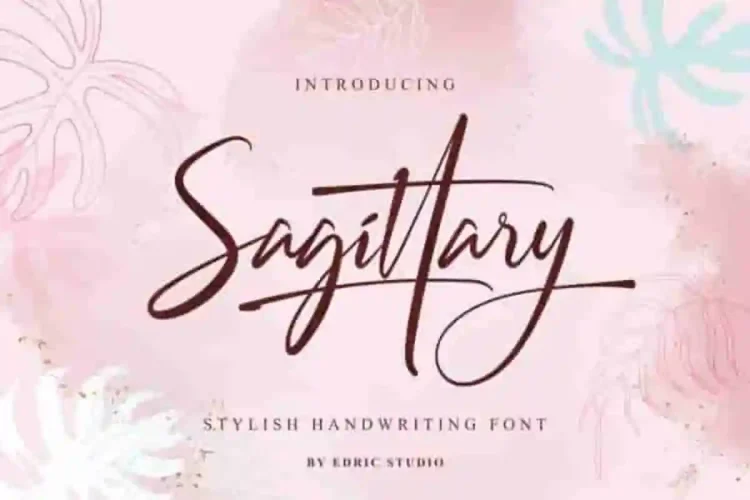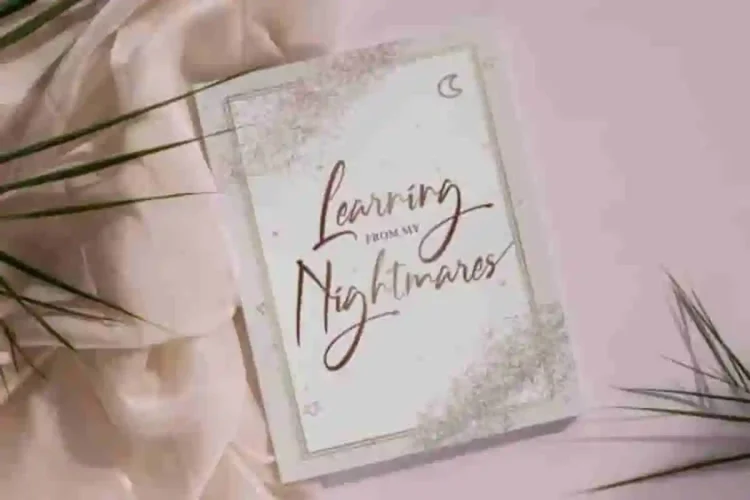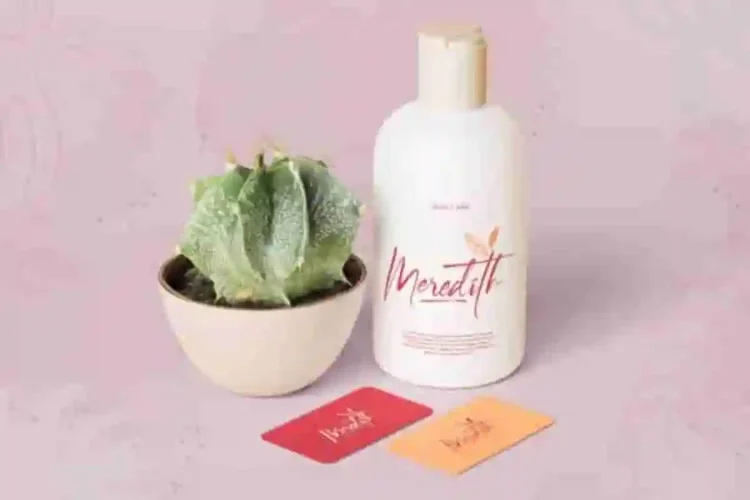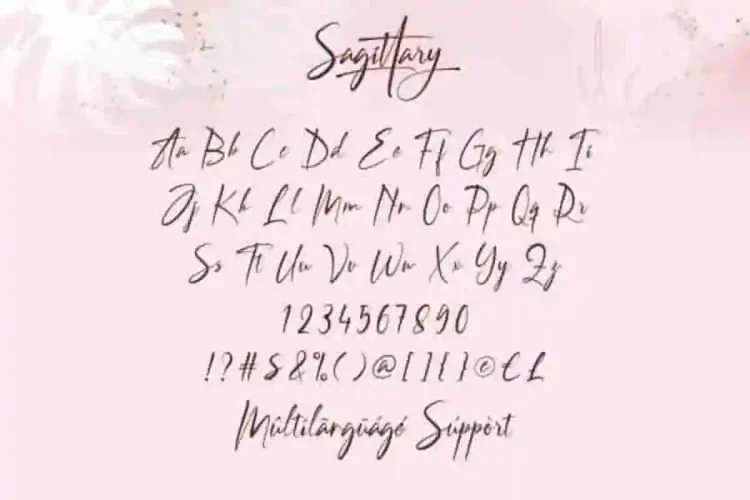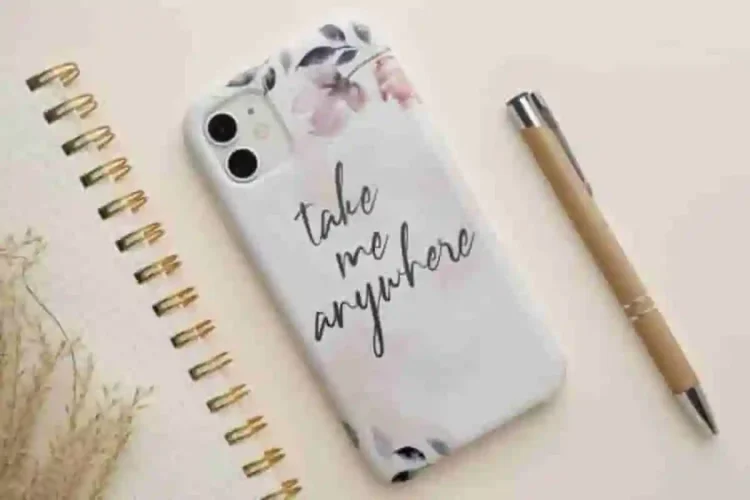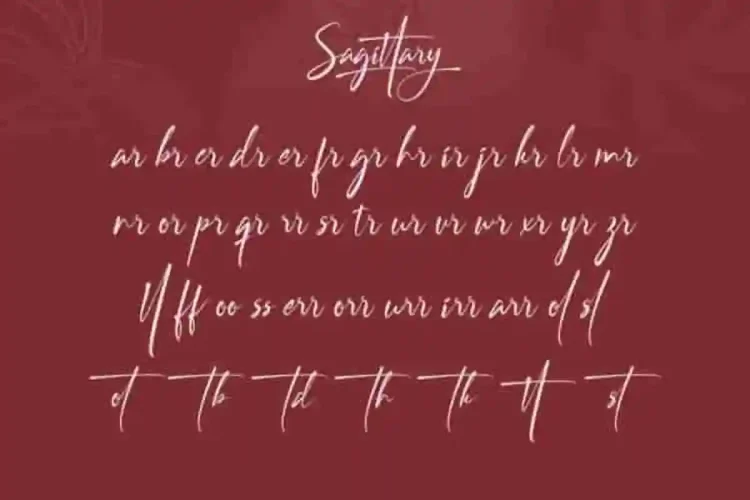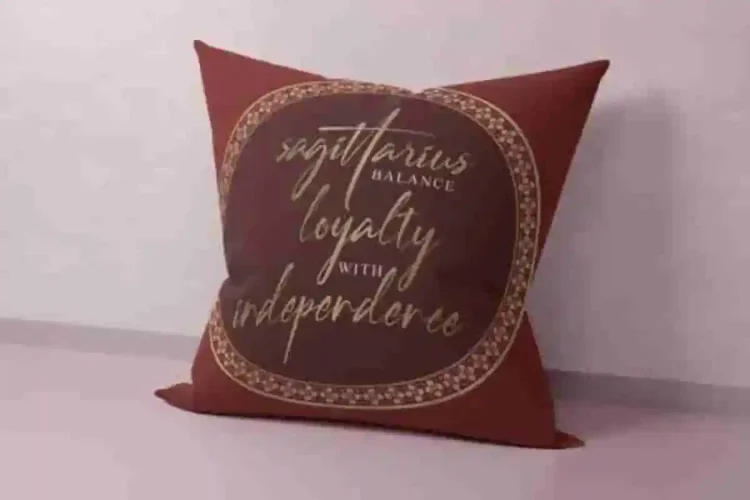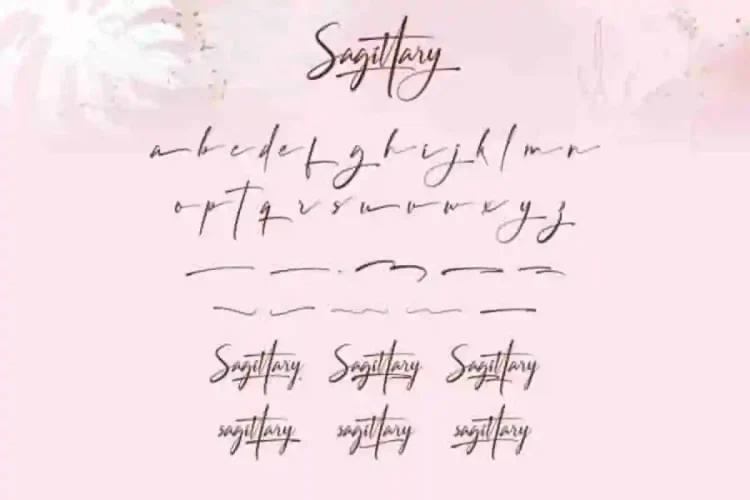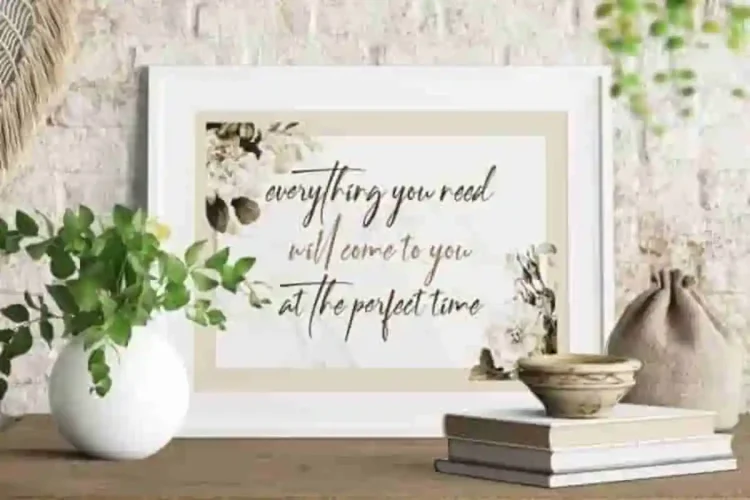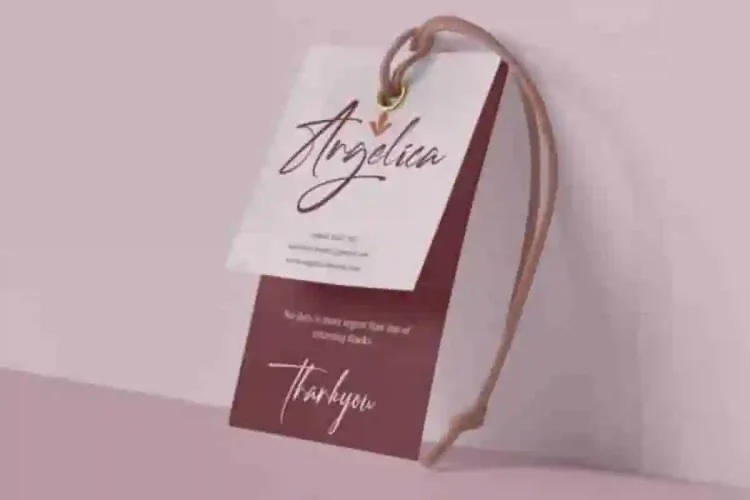
Sagittary Signature Font is a stylish handwriting script font with signature style created by EdricStudio. The lines in this font will bring out undeniable beauty and suitable for industries like: architect, author, cosmetic, craft, homeware, publishing, salon & spa, wedding organizer, etc.
Sagittary Signature Handwritting Font comes with a full set of Uppercase and Lowercase Basic Characters, Number, a large range of Punctuation and Symbol, Ligature, Alternate, Swoosh. It has a stunning characters set, perfectly managed with well spaced and kerning.